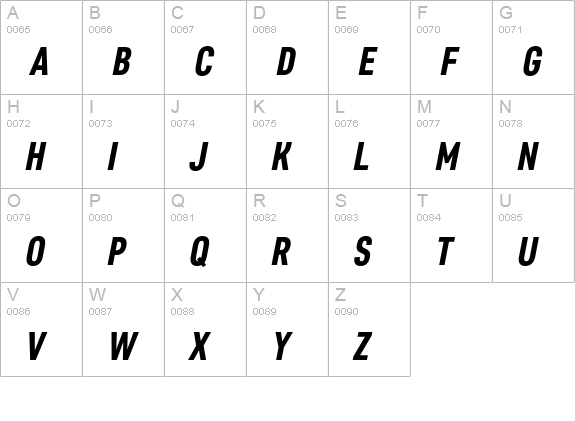
Core Sans D 67 Cn Heavy Italic is a heavy, high-impact, italic variant in the Core typeface family \xE2\x80\x94 well suited to high-impact headlines, posters, and display advertising.
Core Sans D 67 Cn Heavy Italic is a bold and dynamic font that exudes strength and modernity. Its heavy weight and italic style make it ideal for creating impactful designs that demand attention. The sharp angles and sleek curves of this font give it a contemporary and edgy feel, perfect for projects that require a strong visual presence. What sets Core Sans D 67 Cn Heavy Italic apart is not only its striking design but also the fact that it is available for free download at FontsMarket.com. This means that designers and creatives can easily access this powerful font without any cost, making it a valuable asset for a wide range of projects. Whether you're working on branding, advertising, posters, or any other creative endeavor, Core Sans D 67 Cn Heavy Italic is sure to make a bold statement. Download it for free today and elevate your designs with this impactful and visually striking font.